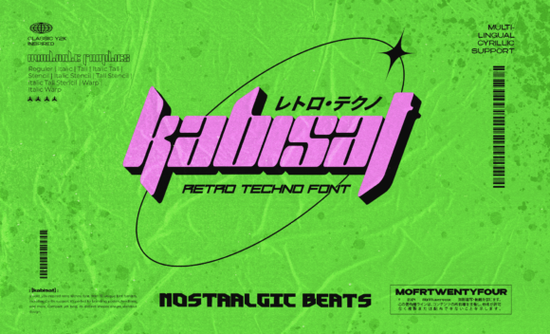
If you're looking for a bold, retro-futuristic font that works across real-world design tasks like T-shirt graphics, social media headers, or small business branding Kabisat Font is worth your time. It’s not just another Y2K revival; it’s a carefully crafted display font with multilingual support, including Cyrillic, and 12 distinct family variants (from thin outlines to heavy techno-bold). That means you can use one font family for multiple roles headline, subhead, accent text without switching between unrelated typefaces.
What makes Kabisat different from other retro display fonts?
Most “Y2K” or “techno” fonts lean heavily into glitch effects or extreme distortion but Kabisat Font balances nostalgia with usability. Its letterforms are tight, legible at medium sizes, and built with consistent spacing so it holds up in both digital previews and printed merch. Unlike some display fonts that vanish at smaller sizes, Kabisat’s Bold and Outline variants remain readable even at 24–36 pt, making them practical for posters, product labels, or Instagram story text overlays.
The family includes weights like Thin, Light, Regular, Bold, Black, plus matching Outline, Shadow, Neon, Glitch, Retro, Tech, and Mono versions. You’re not just buying a single style you’re getting a coordinated toolkit. For example: use the Neon variant for a concert poster headline, then pair it with the Light version for body copy or layer Glitch over Regular for subtle texture without sacrificing clarity.
Who actually uses Kabisat and how?
Print-on-demand sellers tell us they reach for Kabisat when designing limited-run tees for niche audiences think synthwave fans, indie game devs, or retro tech communities. Its Cyrillic support means designs translate well for Eastern European markets, and its OpenType features (like stylistic alternates and ligatures) help avoid repetitive letter combinations in longer phrases.
Small business owners use it for café chalkboard menus, event flyers, or local festival branding especially when they want something bolder than standard sans-serifs but more intentional than free “vintage” fonts from sketchy download sites. Designers also report using Kabisat alongside cleaner sans-serifs (like It’s Me Hello) for contrast: pairing its high-energy shapes with simple, grounded type creates visual hierarchy without clutter.
Does it work with other Creative Fabrica fonts?
Yes and thoughtfully. Because Kabisat was designed as a display font (not a text face), it pairs well with legible, neutral companions. For example, Fishtail Monogram adds elegant contrast for logos or monogrammed apparel, while Ransom Note Magazine gives a playful, editorial counterpoint for zine covers or DIY packaging. If you’re building seasonal bundles say, a Halloween collection Kabisat’s Glitch or Tech variants sit comfortably next to fonts from the Halloween Bundle Volume 5, especially when you need a futuristic twist on classic spooky themes.
- Test readability first: Try typing your most common phrase (e.g., a shop name or tagline) in both Regular and Bold variants at 48 pt then shrink to 24 pt. Does it stay clear? If yes, you’ve got flexibility.
- Check language needs: If you serve customers who read Russian, Ukrainian, Bulgarian, or Serbian, confirm the Cyrillic glyphs cover your required characters not just the alphabet, but punctuation and numerals too. Kabisat does include full Cyrillic support.
- Avoid over-layering: The Glitch and Neon variants shine as accents not full paragraphs. Use them sparingly, like on a single word in a headline or as a logo lockup detail.
For reference, you can see how designers apply similar aesthetics in professional work by checking out Kabisat font usage examples on Creative Fabrica’s platform including mockups, SVG bundles, and ready-to-use social templates.